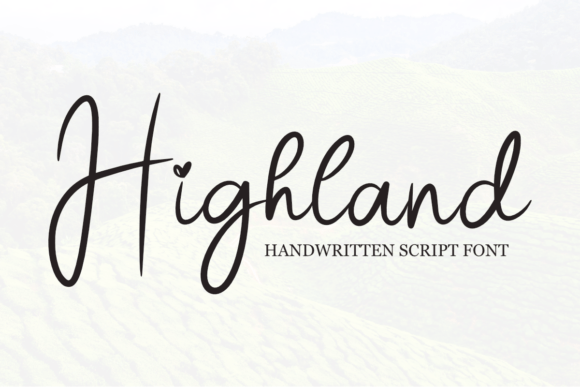
Highland Font
Highland is a sweet and cursive handwritten font. This gentle font will look gorgeous on a variety of design ideas. It will add a joyful and romantic touch to each of your projects! Perfect for projects like dog print valentine paper, bookmarks, mugs, 100 days of school, planner, tumbler wrap, sublimation, embroidery, procreate, notion, tumbler, laser cut.